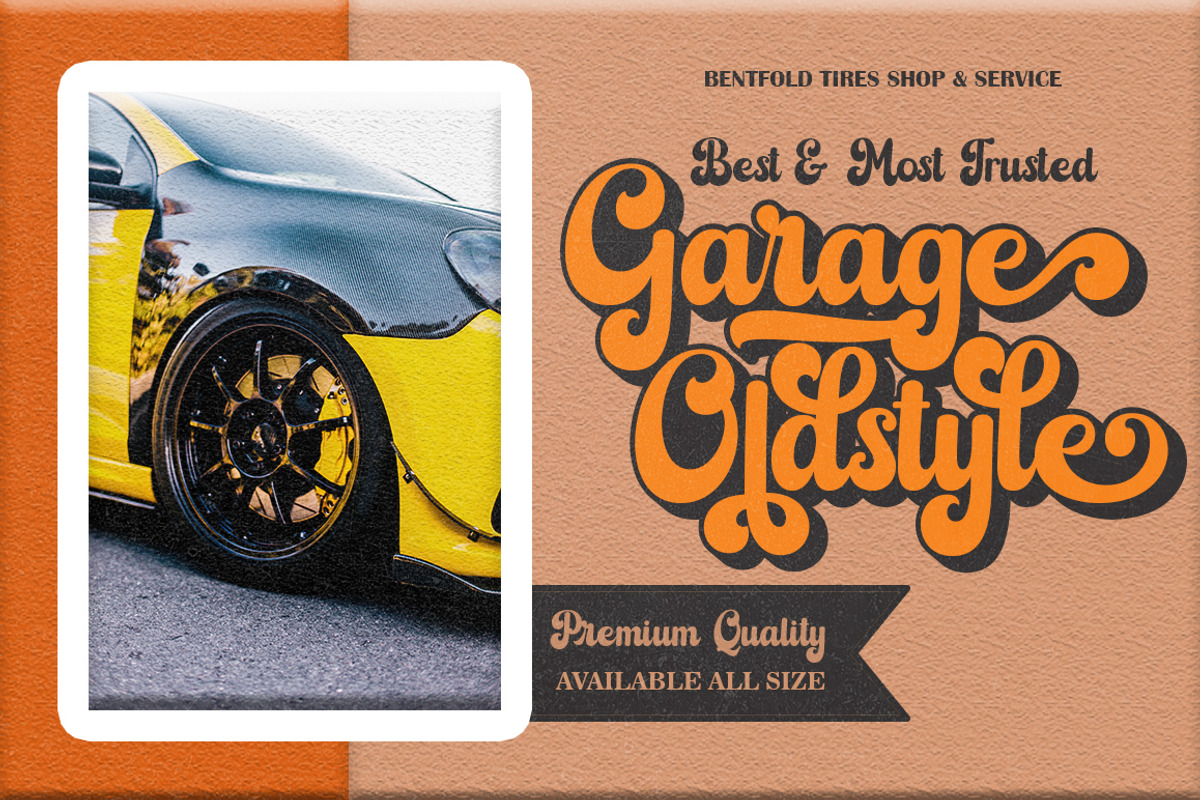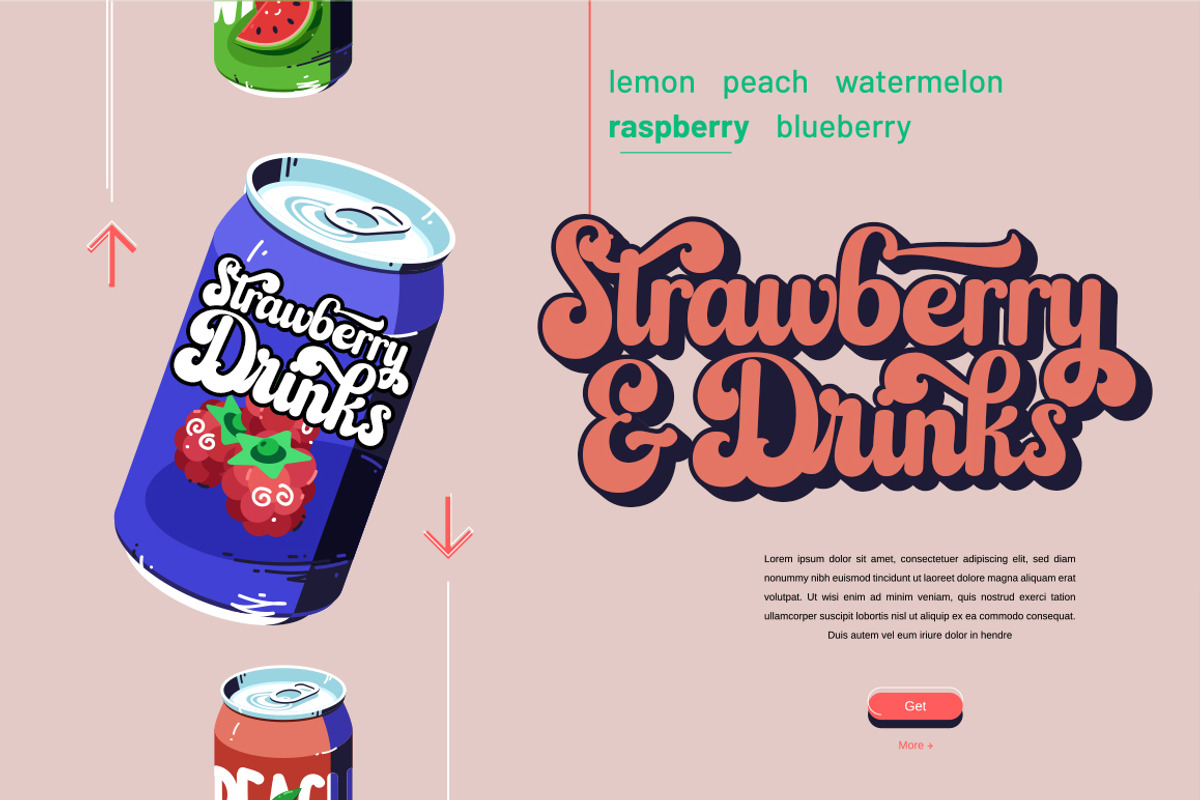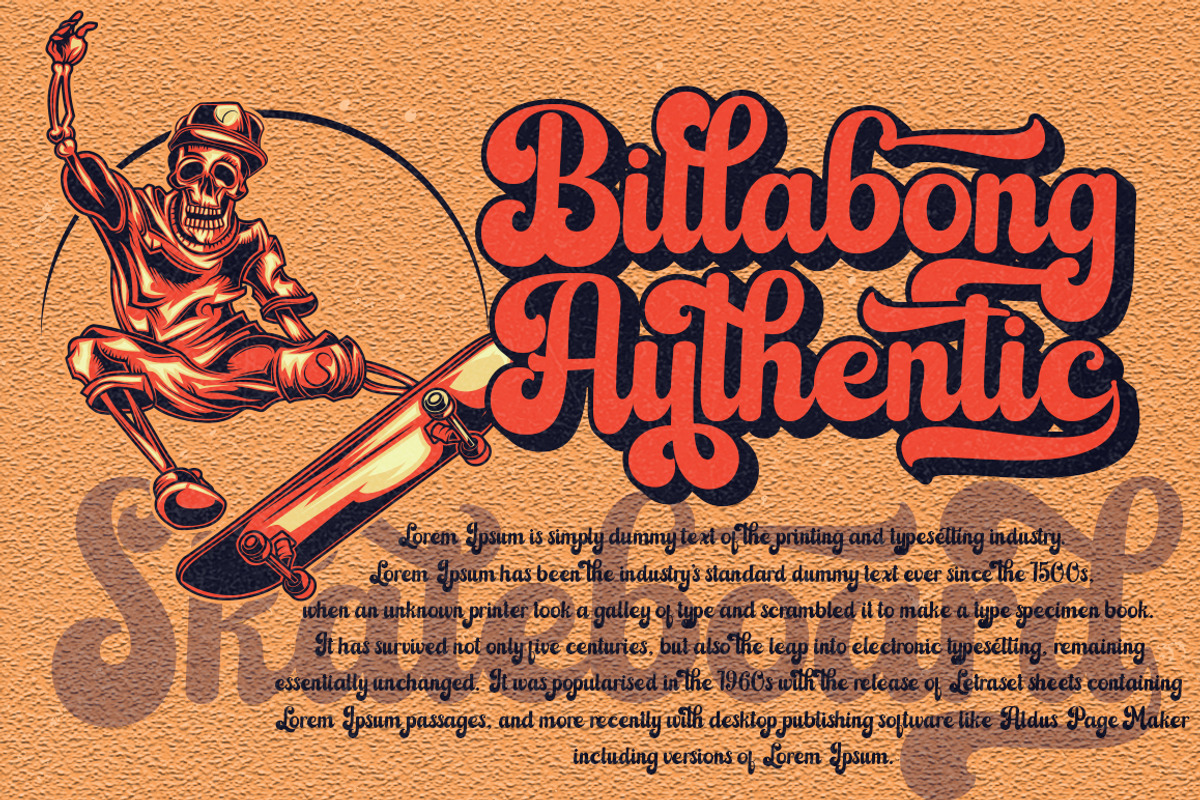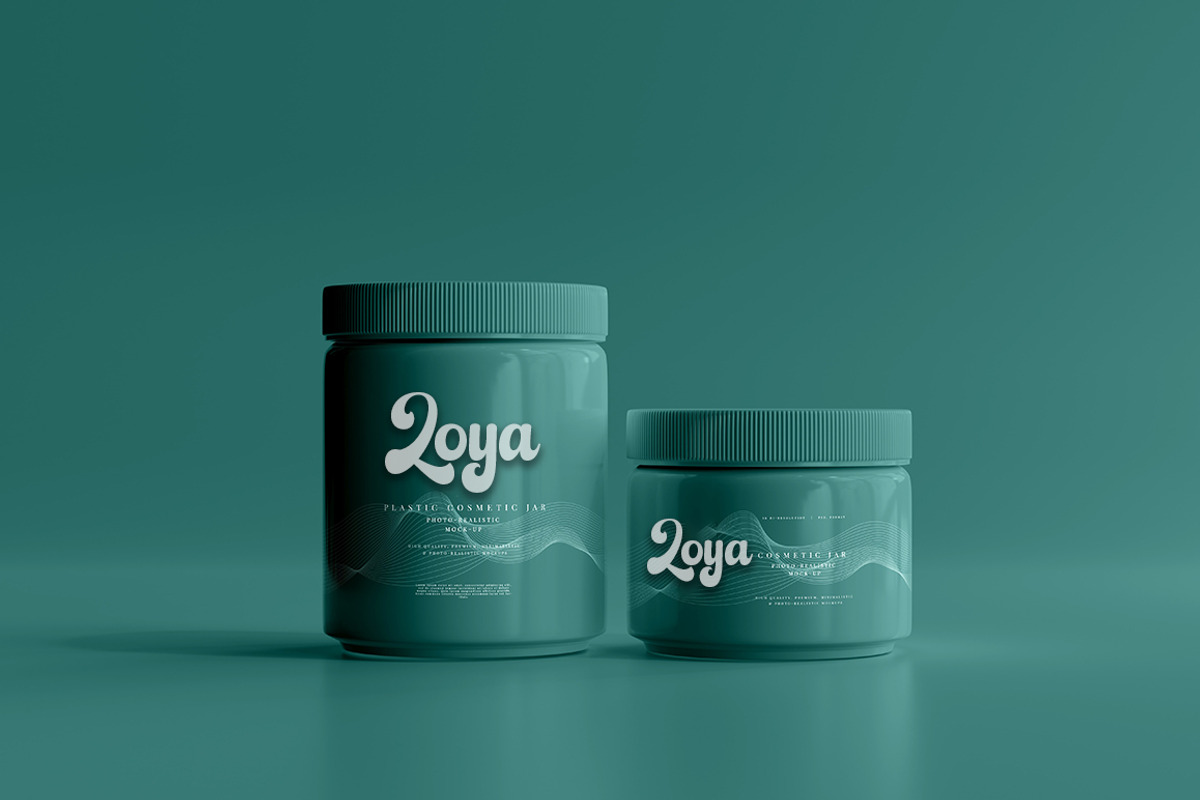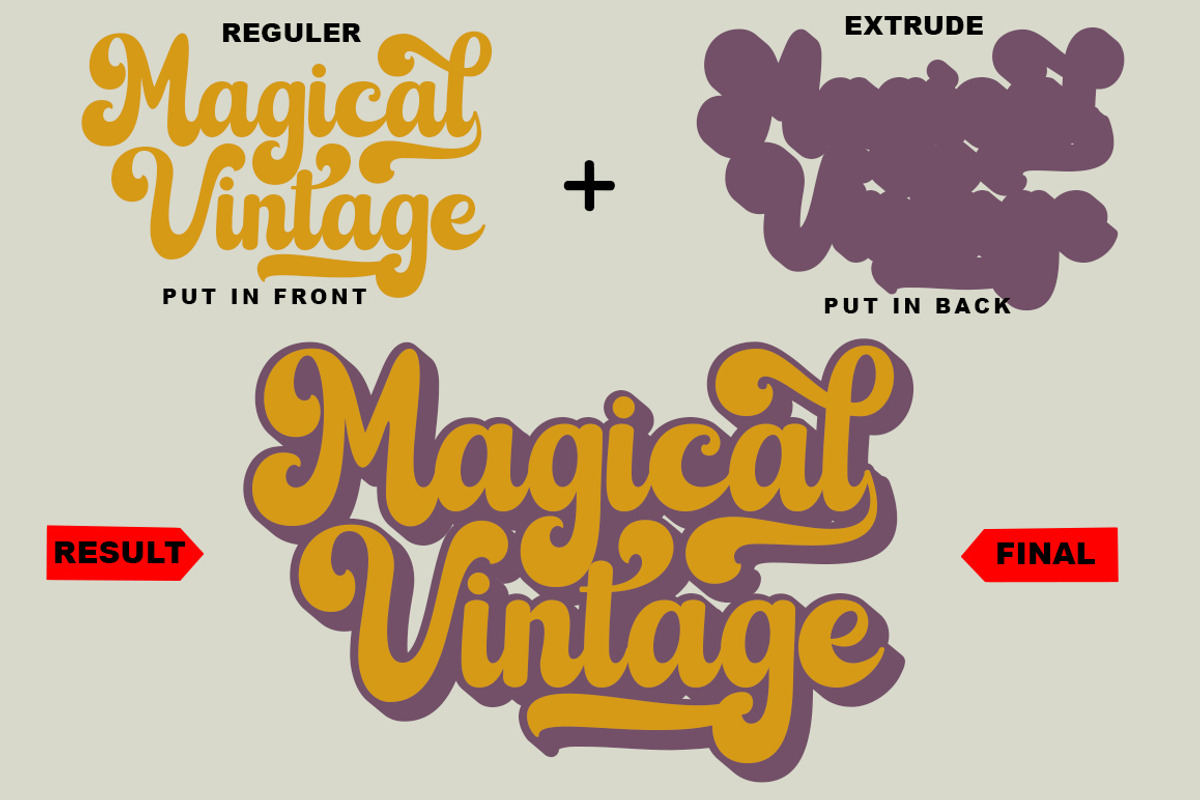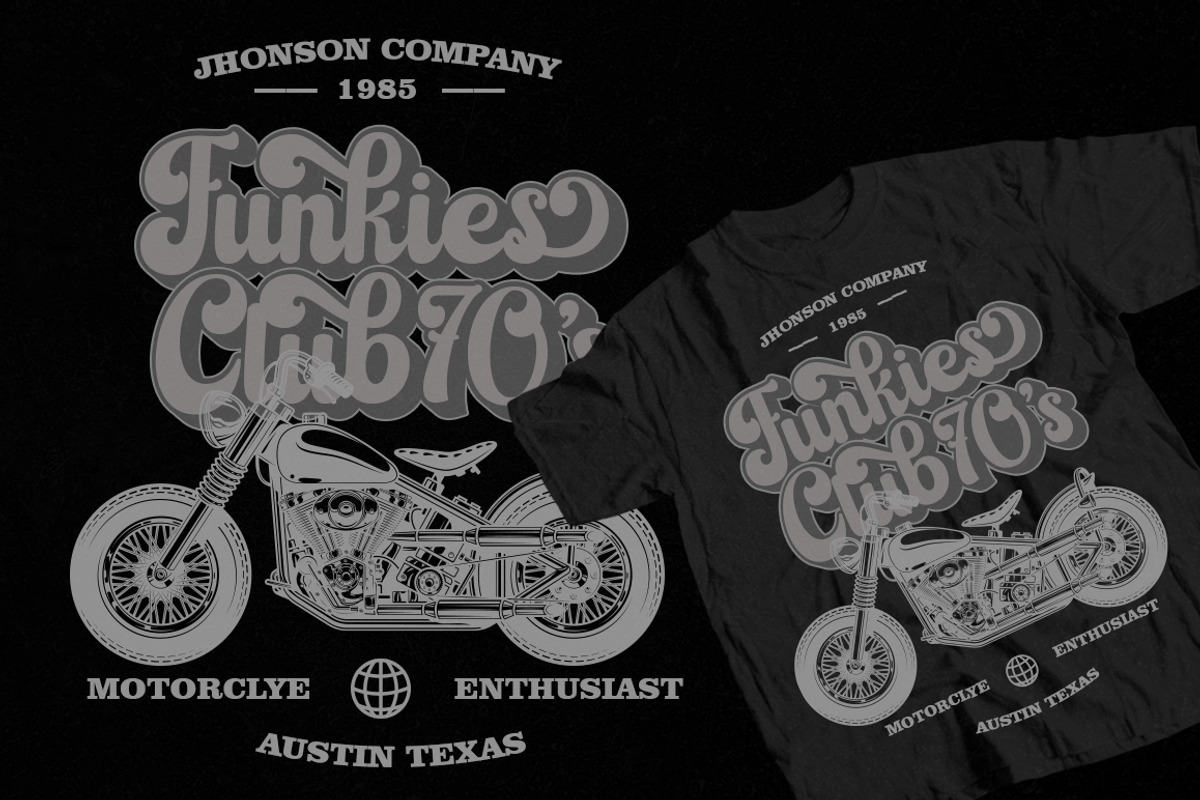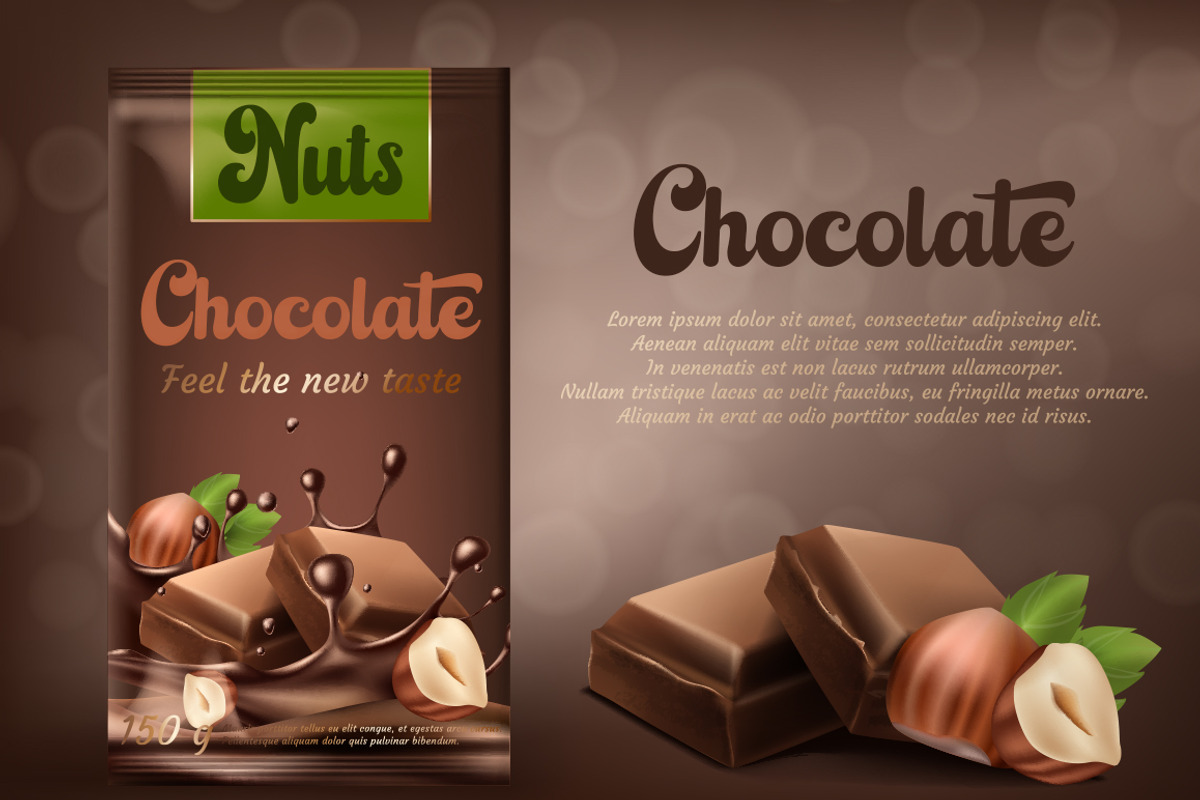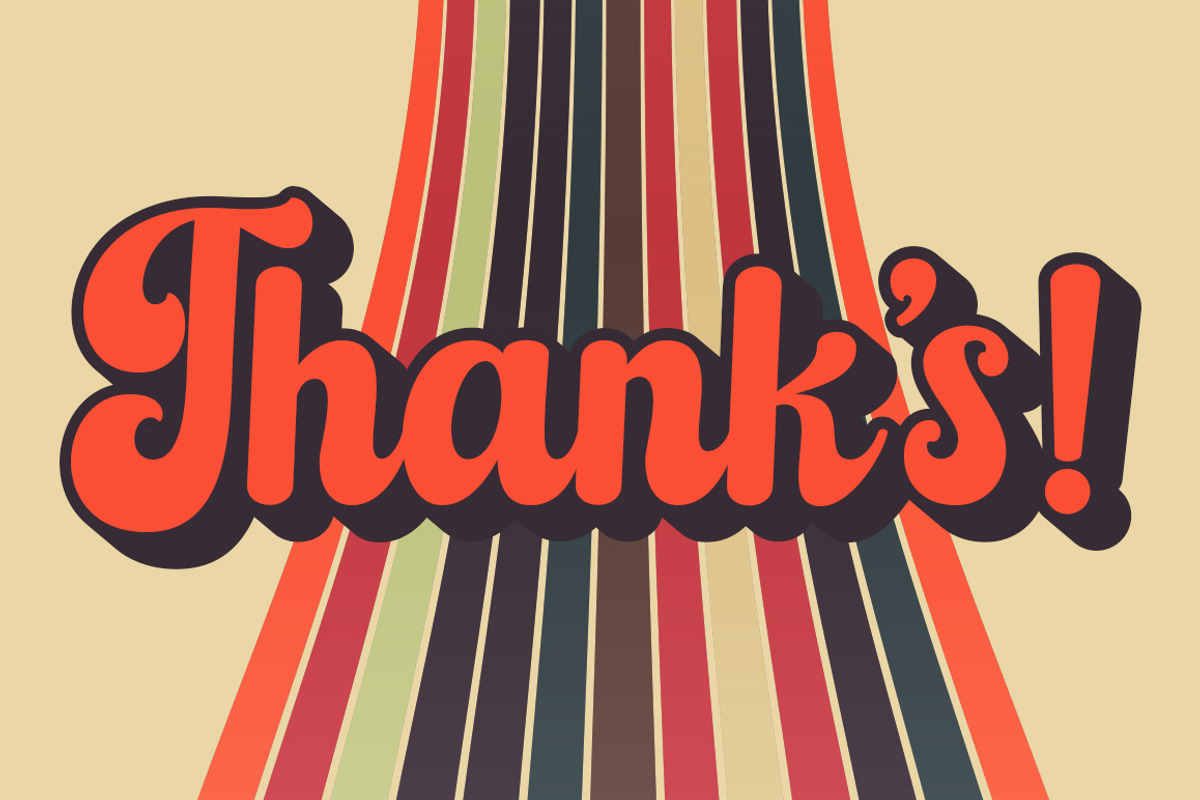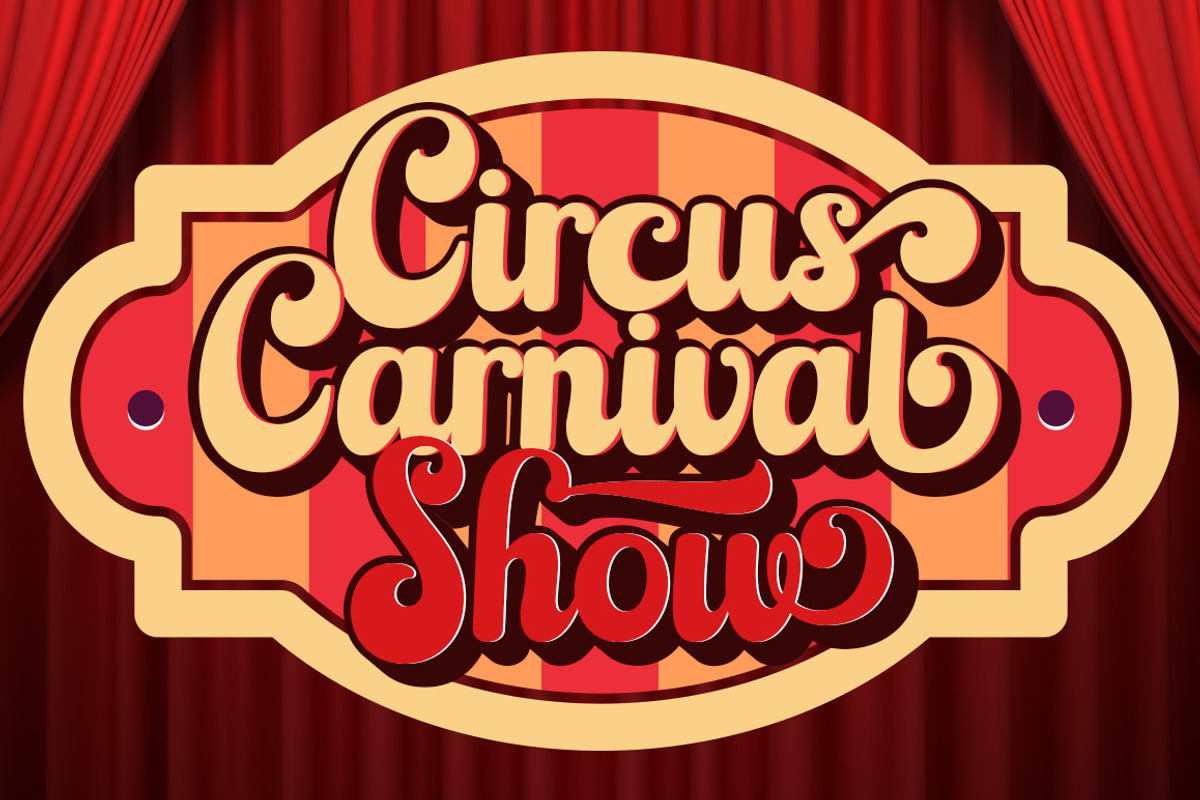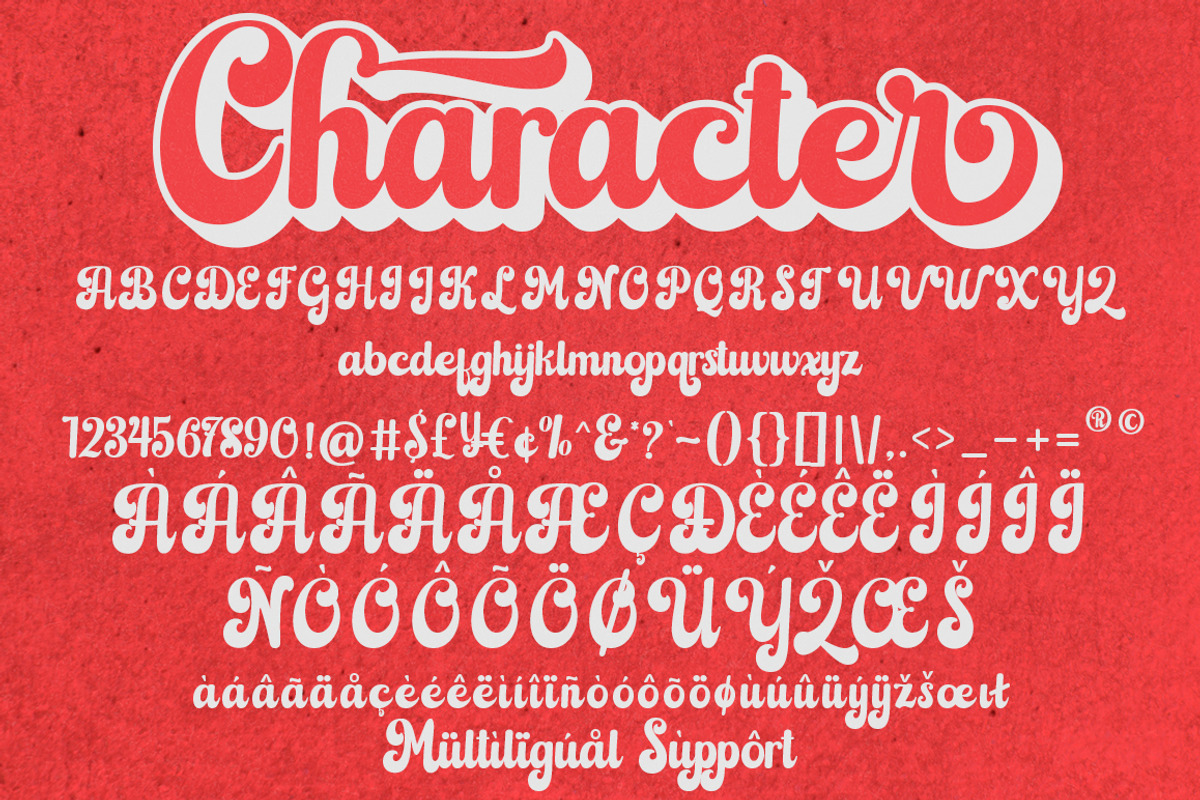
Magical Vintage
Magical Vintage Font - Retro 70's Script Style. It comes with open type features like style alternatives, style sets, contextual alternatives & binders. This Retro styled font will help you create amazing designs. It offers beautiful typographic harmony for a wide variety of design projects, including logos & branding, social media posts, advertising & product designs.
Include Fancy Style in Every Uppercase and Some Lowercase
Magical Vintage also includes the complete set: Uppercase and lowercase letters Special Ligature Style Alternative Numbers & Punctuation Accented character